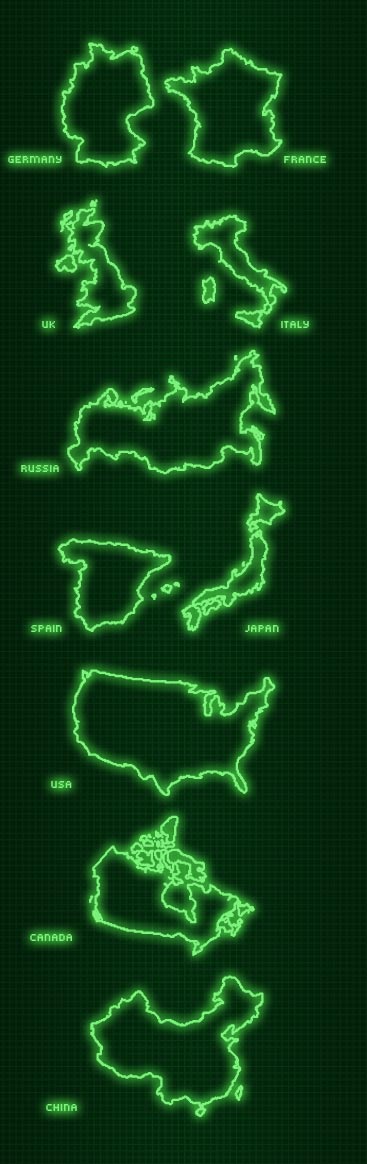
• to draw the outlines i used overlay images of real maps. you can recommend a country for me to do next if i can finde the time.
See borders 2 for more countries.
A - Germany
B - France
C - United Kingdom
D - Italy
E - Russia
F - Spain
G - USA
H - Canada
I - Japan
J - China
K - Indonesia
L - Portugal
M - Australia
N - New Zealand
O - Philippines
P - Mexico
Q - Europe
R - Denmark
S - India
T - Asia
Indonesia - with all the islands ;-)
very good i like it alot specially...hey wait a minute, Wheres Portugal? lol
Comment by jmarquez 16th january 2009
added indonesia ;)
next one will be portugal
Ha! Great. You know you have to finish with the ENTIRE WORLD now. By my count, the Fontstruct Universe consists of: people and the cars/trucks/buses/horse buggies they drive, their homes offices and the cities they live in, and now the countries they inhabit. Get ready planets, galaxies, and supernovas we are coming for you next.
Added Portugal :)
Totally cool. What about New Zealand. It's that tiny glove puppet hanging on for grim death the bottom Australia. Mummy! Save me from Antarctica!
See what you've started?
where's the philippines?
amazing!! you should add australia or Mexico
Added Australia, New Zealand, Philippines, Mexico, Europe
As a Dane I am used to being overlooked, but an outline of Denmark (or maybe Scandinavia) would be nice.
added denmark :)
hWOOW!
You're a magician!
Comment by aaronamar 17th january 2009
PLEASE PLEASE PLEASE ADD INDIA AND ASIA!
I NEED THEM TO MAKE MY GEOGRAPHY PROJECT!
BTW THIS IS IS A GREAT FONT!!!
Comment by gunvir 18th january 2009
stunning!
Comment by guentersen 18th january 2009
Added India & Asia. Not that the outline of Asia isn't 100% accurate as there is no coast in the west where it borders to europe. i simply drew the border of russia there but the geographically accurate border would differ and go along with moutntains and rivers. noone really knows anyway.
@Magic_Sam: Danke fürs Lob. Ich hab garnicht so lange gebraucht weil ich eine Möglichkeit zum abzeichnen von Karten gefunden hab. Das größte Problem war eigentlich die hohe Auflösung. Mein Monitor konnte da nicht mithalten und so musste ich viel scrollen und verschieben. Und ja ich studiere KD. ;)
Comment by David Neustadt (saberrider) 18th january 2009
thanks 4 adding asia and India !
I'm going to get a+!!!
at the end of my project I've added
ur name in the credits too!!!
great font
***** 10/10!!!!!!
Comment by gunvir 19th january 2009
how did u manage 2 make india and asia in 1 day????!!!!!!
cool!!!!
Comment by gunvir 19th january 2009
"Wir sind unwürdig, großer Meister"!
some weeks ago i installed a mini tool called "transparent windows". it's free and allows you to "trace" pictures. it can be very useful to give some websites a look-through-effect .
:P
Comment by kix 19th january 2009
Wow. Nice work! Love it.
Any chance you could add the Netherlands? :D (A)
BTW, having problems to download, it gives an error, anyone knows what to do? :$
Comment by Querti 19th january 2009
I had to split the font up now because it seems I reached the maximum number of bricks.
See borders 2 for more countries. I also added the Netherlands.
Comment by David Neustadt (saberrider) 20th january 2009
how can borders 2 get a top pick without
AFRICA and EGYPT.I ALSO SUGGEST Eurasia (EURASIA IS MADE UP OF ASIA AND EUROPE TOGETHER!)
actually Asia is in borders 2
ps. the link doesn't work since it's a Fontshop link and not a regular Fontstruct link
Comment by digitalio-2 26th september 2024
what about the united arab emirates (U.A.E.)
Comment by 18man 2nd january 2025
GHP